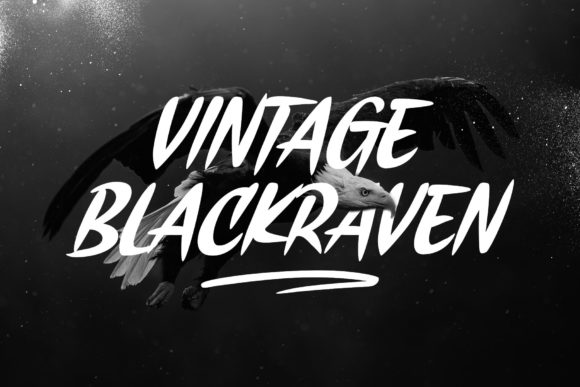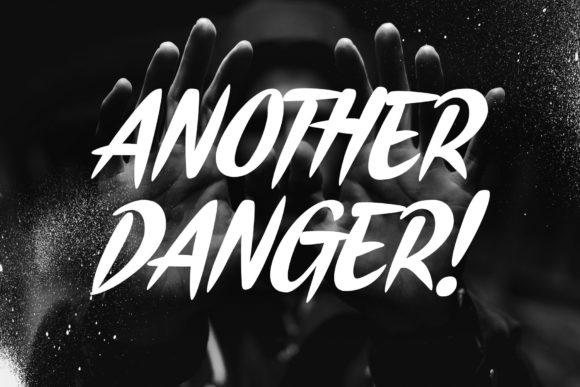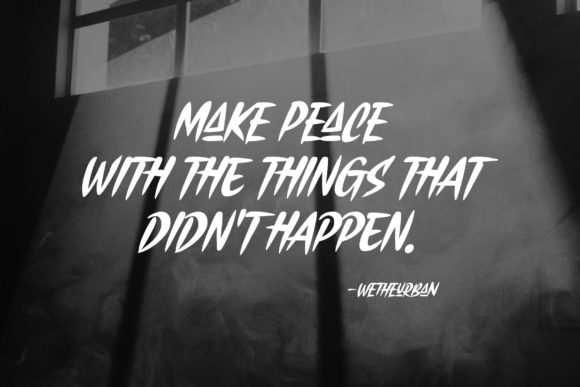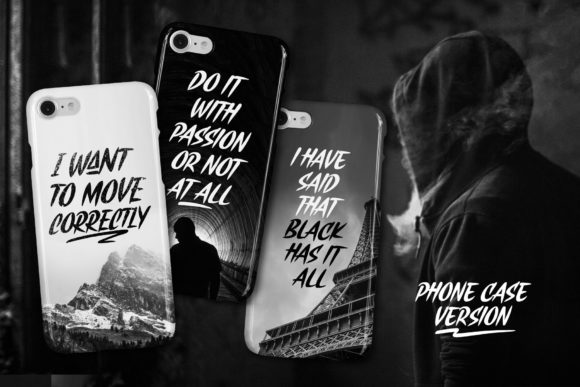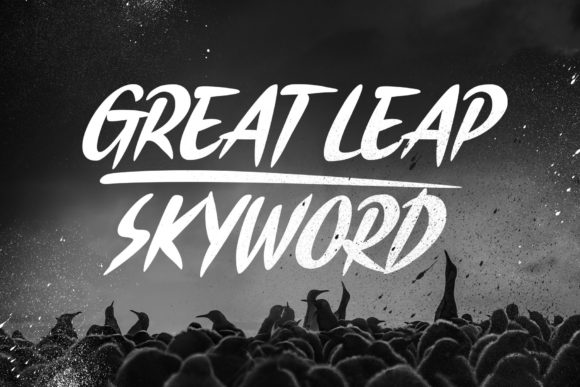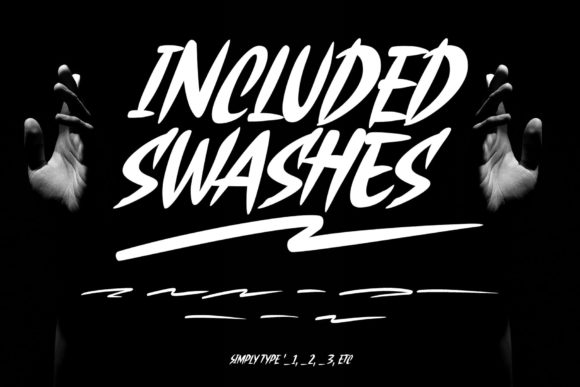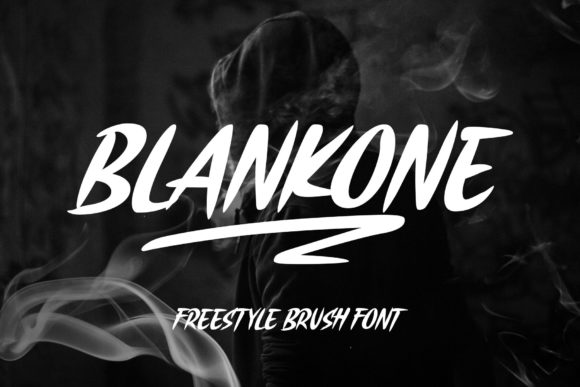
Introducing Blankone Font: The Ultimate Display Font for Bold Designs
Are you tired of using the same old fonts in your designs? Do you want to add a touch of nostalgia and confidence to your projects? Look no further than Blankone Font, a solid, fierce, and brushed display font that’s perfect for making a statement. In this article, we’ll dive into the world of Blankone Font, exploring its unique features, and how it can elevate your designs to the next level.
The Power of Blankone Font
Blankone Font is a display font like no other. Its solid, fierce, and brushed texture gives it a unique, rugged edge that’s sure to grab attention. This font reads as strong, confident, and dynamic, making it perfect for designers who want to add a bold touch to their work. Whether you’re working on a logo, poster, or packaging design, Blankone Font is the perfect choice for those who want to make a statement.
Nostalgic Character
One of the standout features of Blankone Font is its nostalgic character. The font’s brushed texture and bold lines evoke a sense of nostalgia, reminiscent of classic designs from the past. This makes it perfect for designers who want to add a touch of vintage flair to their work. Whether you’re creating a retro-style poster or a distressed logo, Blankone Font is the perfect choice.
Versatility
Blankone Font is incredibly versatile, making it suitable for a wide range of design projects. From bold headlines to striking logos, this font can be used in a variety of contexts. Its solid texture and confident feel make it perfect for:
- Packaging design
- Web headers and titles
Why Choose Blankone Font?
So why choose Blankone Font over other display fonts? Here are just a few reasons:
- Unique texture: The brushed texture of Blankone Font gives it a unique, one-of-a-kind feel that’s hard to find in other fonts.
- Confidence and strength: This font reads as strong and confident, making it perfect for designers who want to make a bold statement.
- Nostalgic character: The font’s nostalgic feel makes it perfect for designers who want to add a touch of vintage flair to their work.
- Versatility: Blankone Font can be used in a wide range of design projects, from logos to posters and packaging.
Tips for Using Blankone Font
Here are a few tips for getting the most out of Blankone Font:
- Use it boldly: Blankone Font is designed to make a statement, so don’t be afraid to use it boldly. Experiment with different sizes and colors to really make it pop.
- Pair it with contrasting fonts: Blankone Font works best when paired with contrasting fonts. Try pairing it with a clean, sans-serif font to create visual interest.
- Experiment with textures: The brushed texture of Blankone Font is one of its standout features. Experiment with different textures and effects to really make it shine.